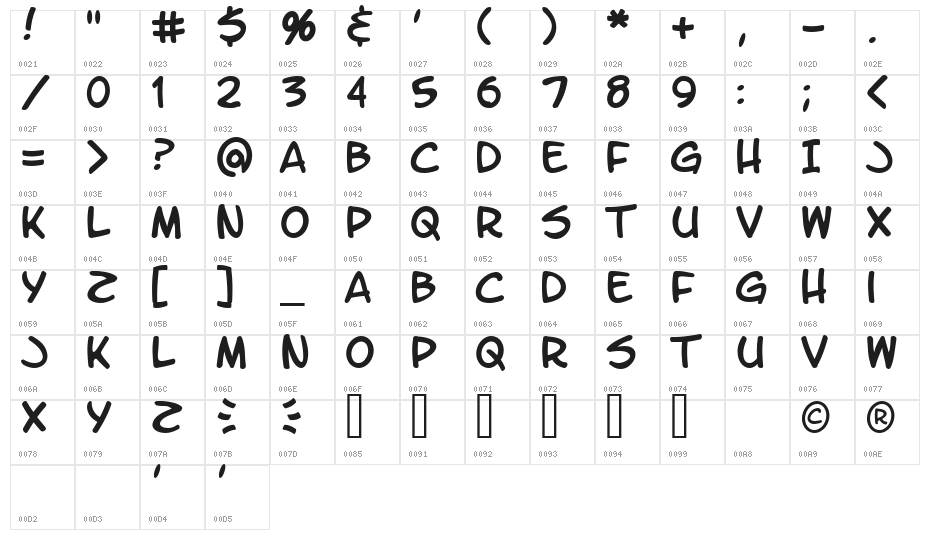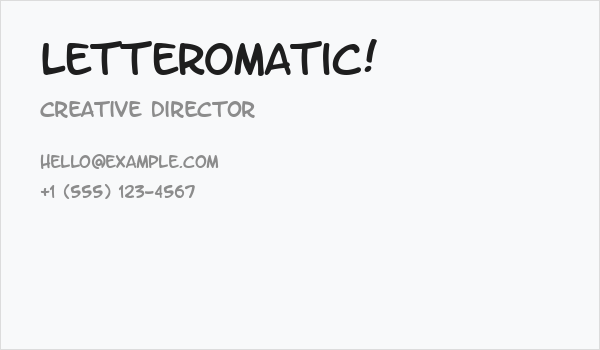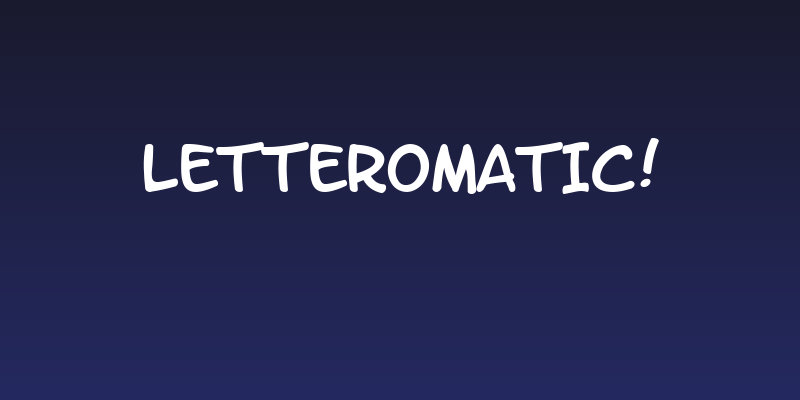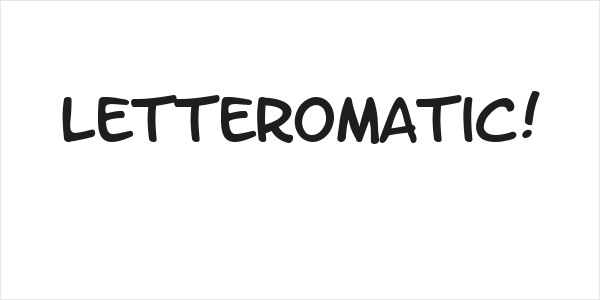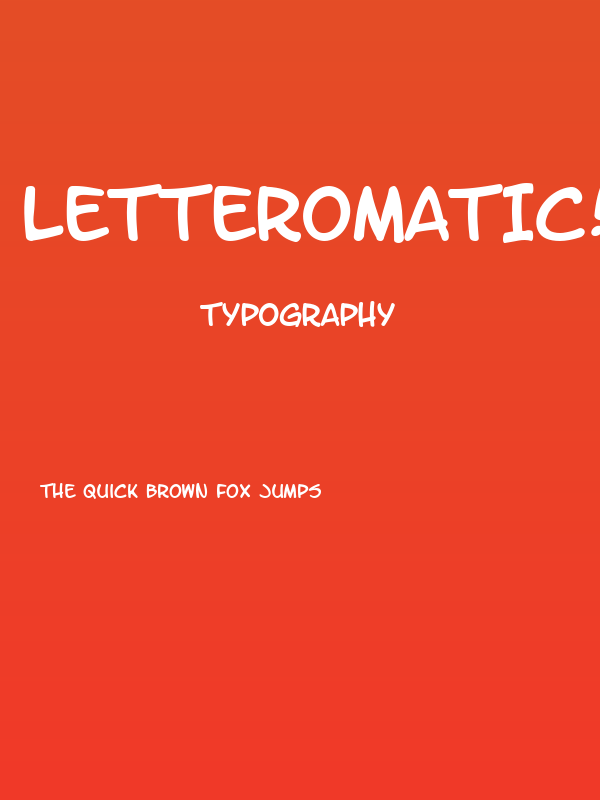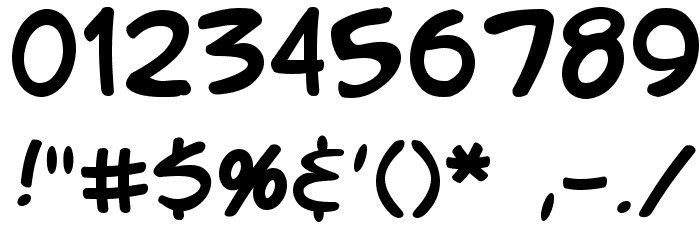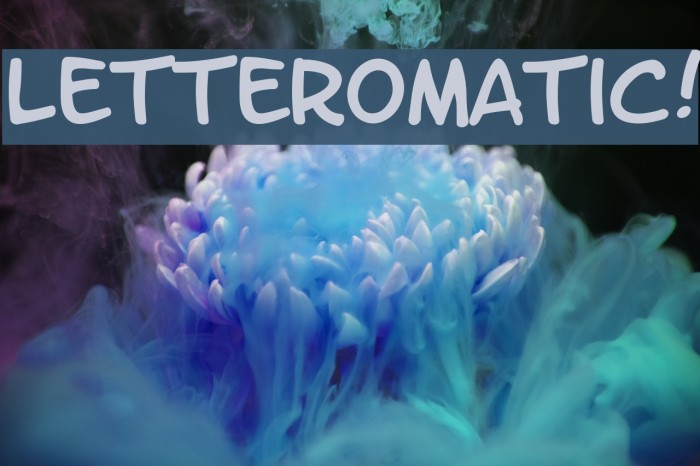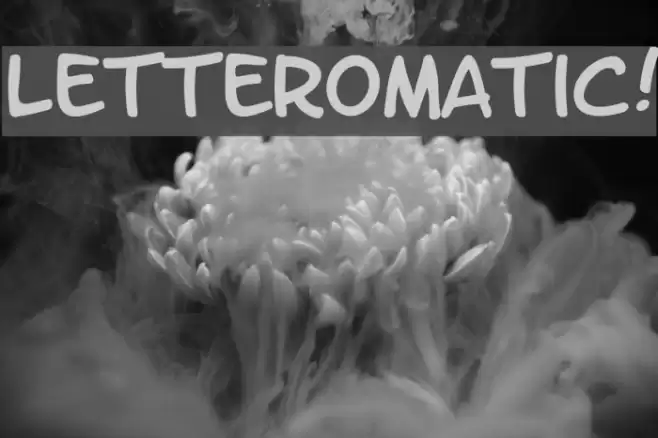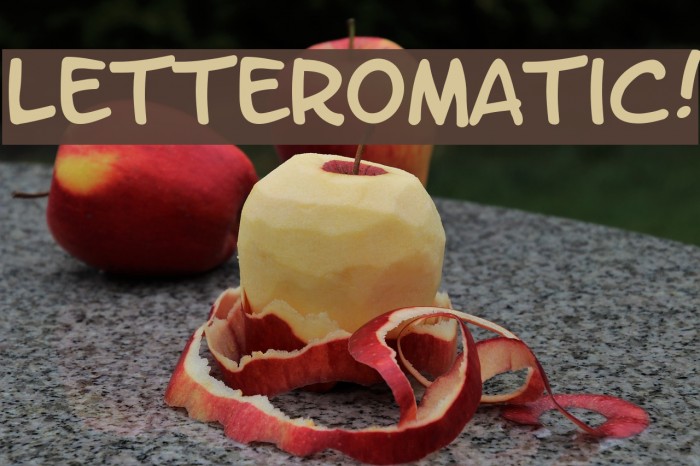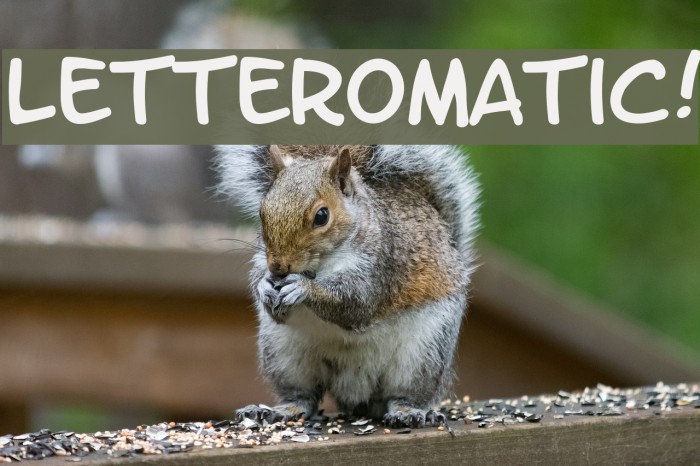
LetterOMatic! Font
LetterOMatic! Description
This font features a playful and casual handwritten style, characterized by its bold and rounded letterforms. The strokes are consistent in thickness, giving it a uniform appearance. The letters are slightly slanted, adding a dynamic and informal feel. The overall design is approachable and friendly, making it suitable for projects that require a personal touch. The numerals and special characters maintain the same playful aesthetic, ensuring consistency across all text elements.
| Proposed Projects | Ideal for children's books, casual invitations, greeting cards, and playful branding. |